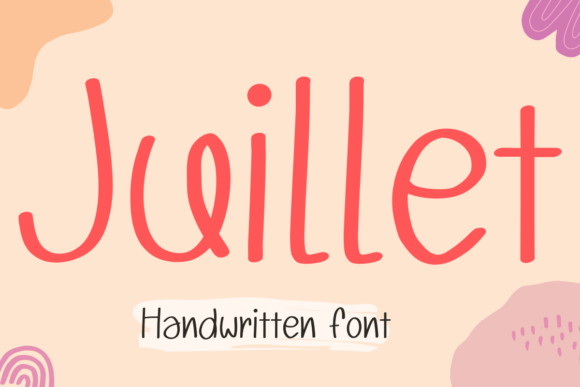
Journey into the realm of exquisite typography with Juillet Font, a captivating script font family that promises to transform your creative visions into mesmerizing realities. With its graceful strokes and elegant curves, Juillet Font exudes an aura of sophistication and charm, beckoning you to unleash your imagination and embark on a journey of artistic expression.
Indulge in the beauty of Juillet Font's meticulously crafted characters, each meticulously designed to evoke a sense of timeless elegance. Experience the fluidity of its lines as they dance across the page, creating a captivating visual rhythm that draws the eyes and captivates the senses. Whether you're crafting logos, designing posters, or composing social media graphics, Juillet Font will elevate your work to new heights of visual appeal.
With its versatility and adaptability, Juillet Font effortlessly complements a wide range of creative endeavors. Its delicate strokes lend themselves perfectly to wedding invitations, adding a touch of romance and whimsy to your special day. Unleash your inner artist and explore the endless possibilities of Juillet Font's expressive style.
Unlock the power of self-expression and let your creativity soar with Juillet Font. Its user-friendly nature makes it accessible to designers of all skill levels, allowing you to effortlessly incorporate its enchanting beauty into your projects. Discover the joy of creating designs that resonate with your audience, leaving a lasting impression that speaks volumes about your artistic vision.
Embrace the allure of Juillet Font and witness the transformation of your creative projects. Let its graceful lines and enchanting curves capture the essence of your message, captivating your audience with their timeless elegance. Experience the sheer joy of creating designs that exude sophistication and charm, leaving an indelible mark in the world of visual communication.